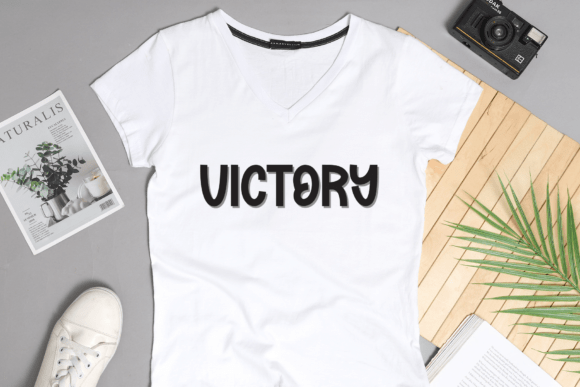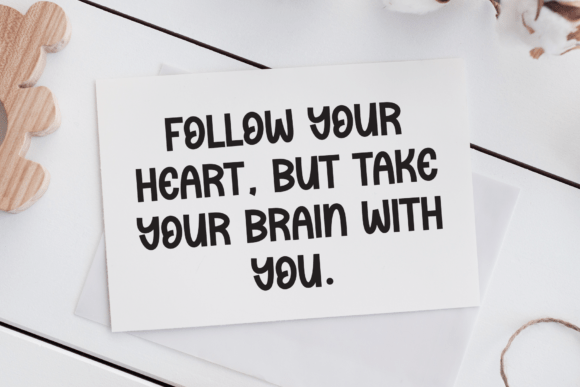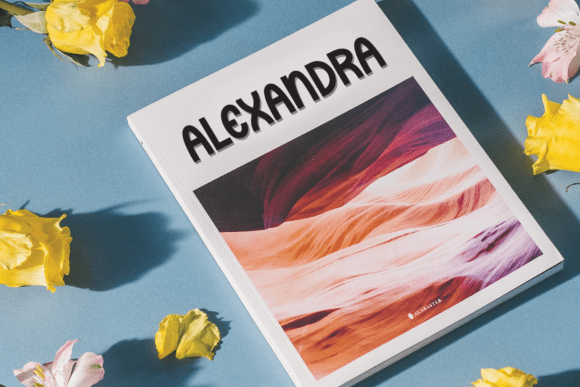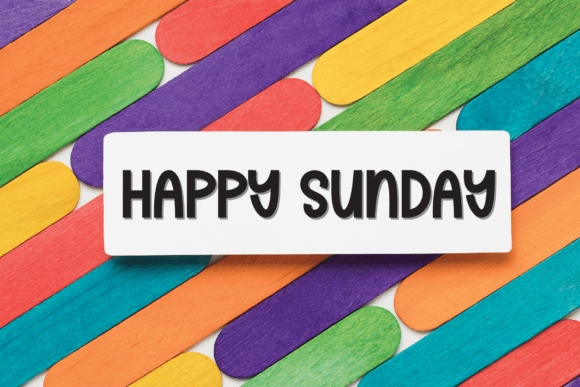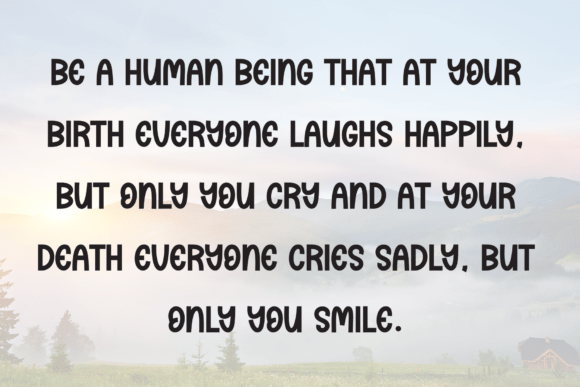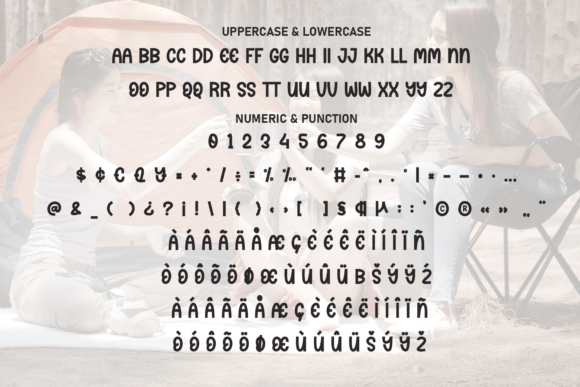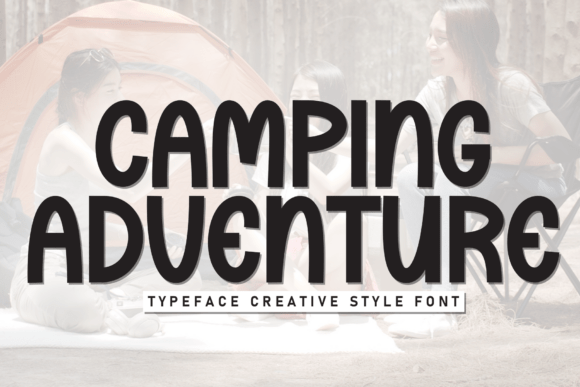
Camping Adventure Font: Elevate Your Designs with a Friendly and Approachable Vibe
Are you tired of using fonts that are too formal or lack a personal touch? Look no further than the Camping Adventure Font, a casual and neat display font that combines simplicity with a friendly, approachable vibe. This modern handwritten typography font is perfect for designers and crafters looking to add a warm and inviting touch to their designs.
Clean Lines, Balanced Letterforms, and Subtle Rounded Edges
The Camping Adventure Font features clean lines, balanced letterforms, and subtle rounded edges, making it a standout in the world of typography. The font’s crisp structure and versatile style deliver clarity and charm in equal measure, making it ideal for a wide range of design applications. Whether you’re working on branding, headlines, packaging, or digital content, this font is sure to elevate your designs and capture the attention of your audience.
The Essence of Modern Handwritten Typography
The Camping Adventure Font captures the essence of modern handwritten typography with a polished finish. The font’s friendly and approachable vibe makes it perfect for designers who want to add a personal touch to their designs. The subtle rounded edges and balanced letterforms give the font a warm and inviting feel, making it perfect for designs that require a human touch.
The Camping Adventure Font is ideal for designers and crafters who want to add a unique and personal touch to their designs. The font’s versatility makes it perfect for a wide range of design applications, including:
• Branding: Use the Camping Adventure Font to create a unique and memorable brand identity that stands out from the crowd.
• Headlines: Add a touch of personality to your headlines with this font’s friendly and approachable vibe.
• Packaging: Use the Camping Adventure Font to create eye-catching packaging that captures the attention of your target audience.
• Digital Content: Add a warm and inviting touch to your digital content, including social media posts, blog articles, and website headers.
Why Choose the Camping Adventure Font?
There are many reasons why designers and crafters should choose the Camping Adventure Font for their designs. Here are just a few:
• Unique and Personal Touch: The Camping Adventure Font adds a unique and personal touch to designs, making them stand out from the crowd.
• Versatility: The font’s versatility makes it perfect for a wide range of design applications.
• Easy to Read: The font’s clean lines and balanced letterforms make it easy to read, even at small sizes.
• Polished Finish: The font’s polished finish gives it a professional look and feel.
Tips for Using the Camping Adventure Font
Here are a few tips for using the Camping Adventure Font in your designs:
• Use it as a Display Font: The Camping Adventure Font is perfect for use as a display font, where it can add a touch of personality and whimsy to headlines and titles.
• Pair it with Other Fonts: The font’s versatility makes it easy to pair with other fonts, creating a unique and visually appealing typography combination.
• Experiment with Colors: The Camping Adventure Font looks great in a variety of colors, so don’t be afraid to experiment and find the perfect hue for your design.
The Camping Adventure Font is a unique and versatile font that is perfect for designers and crafters looking to add a personal touch to their designs. With its clean lines, balanced letterforms, and subtle rounded edges, this font captures the essence of modern handwritten typography with a polished finish. Whether you’re working on branding, headlines, packaging, or digital content, the Camping Adventure Font is sure to elevate your designs and capture the attention of your audience.